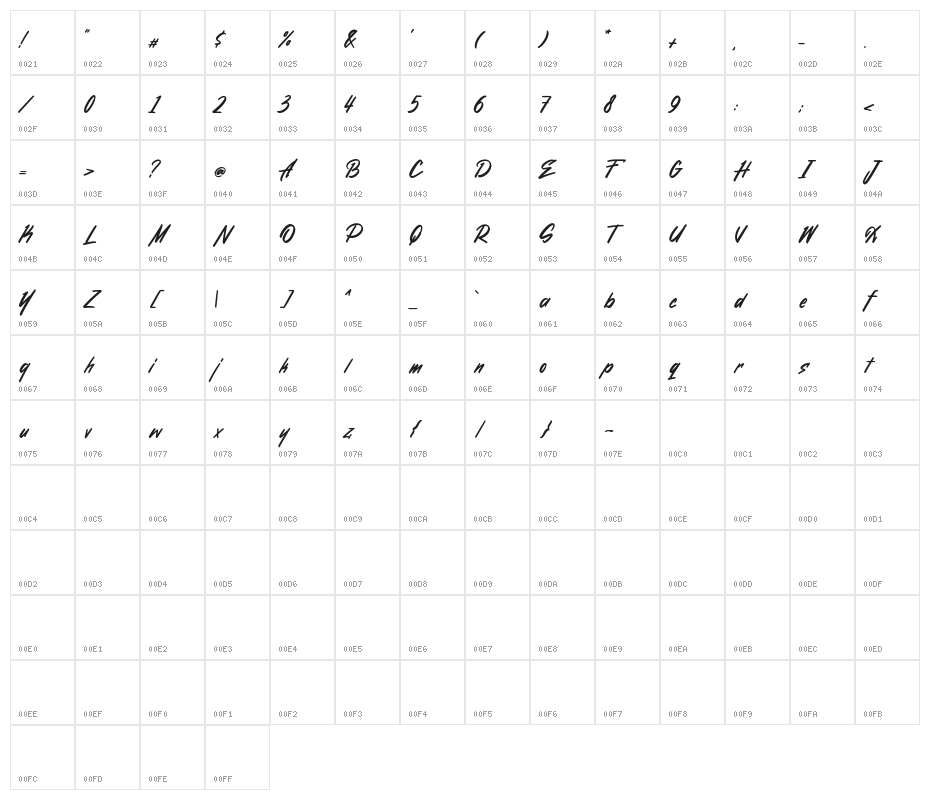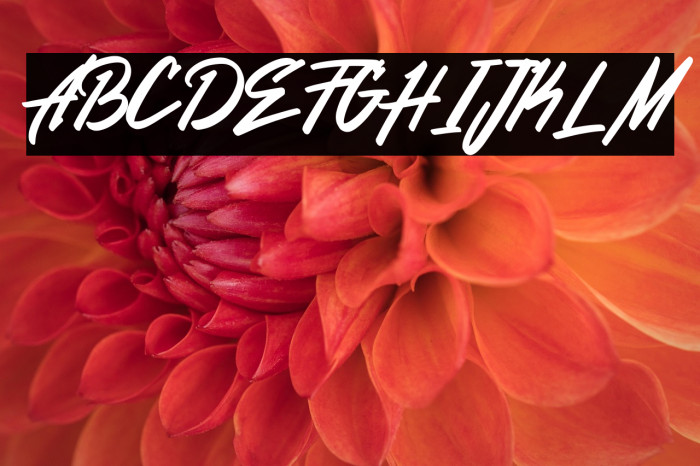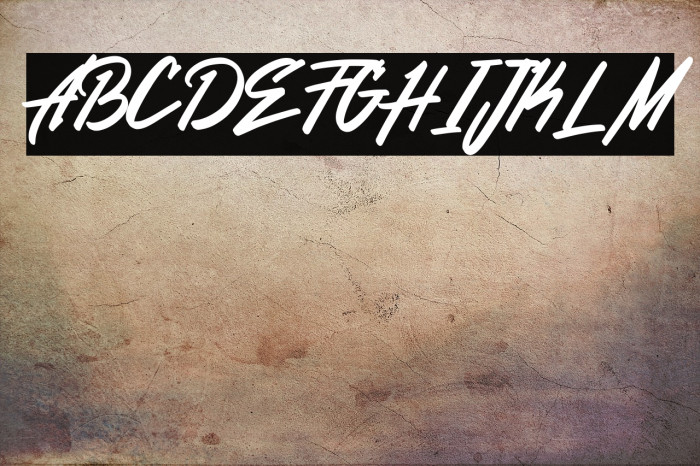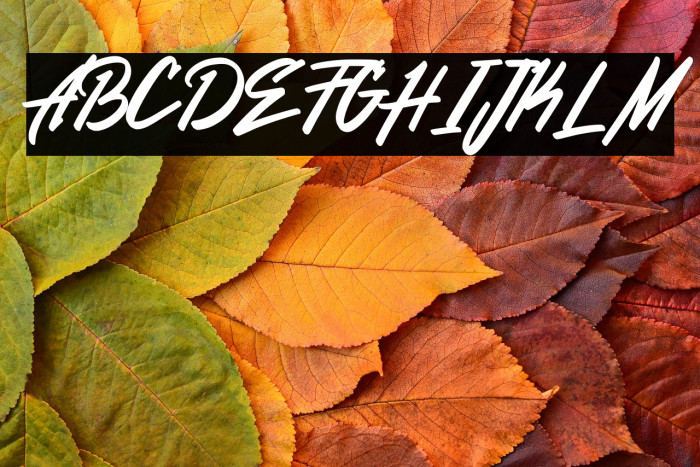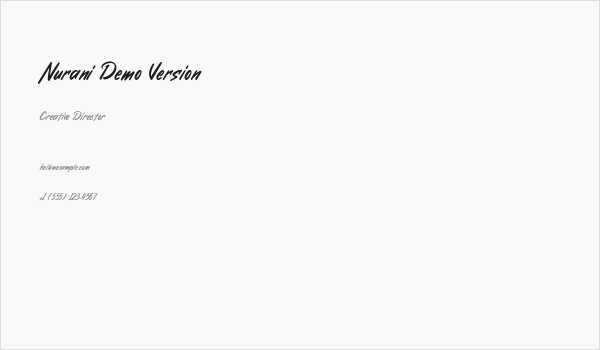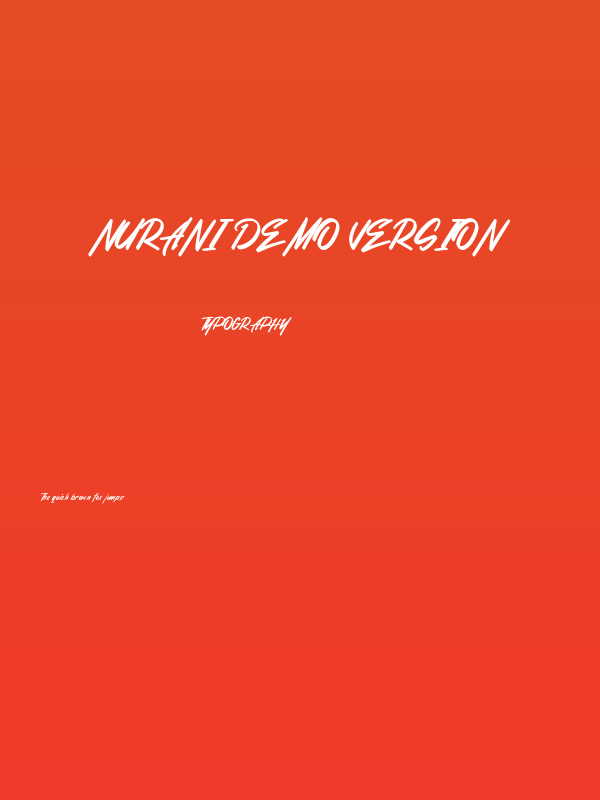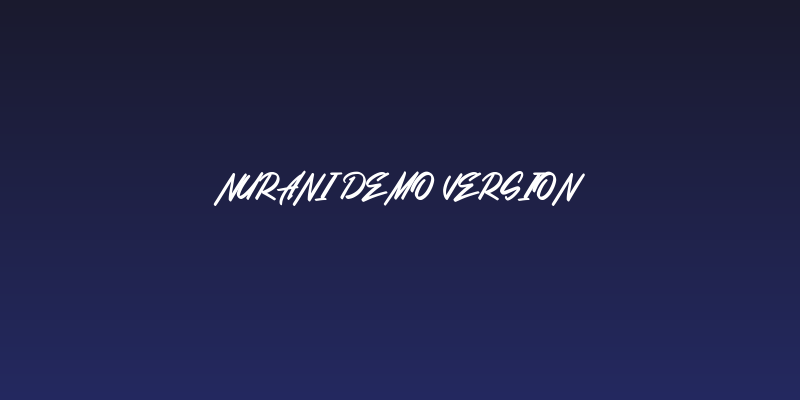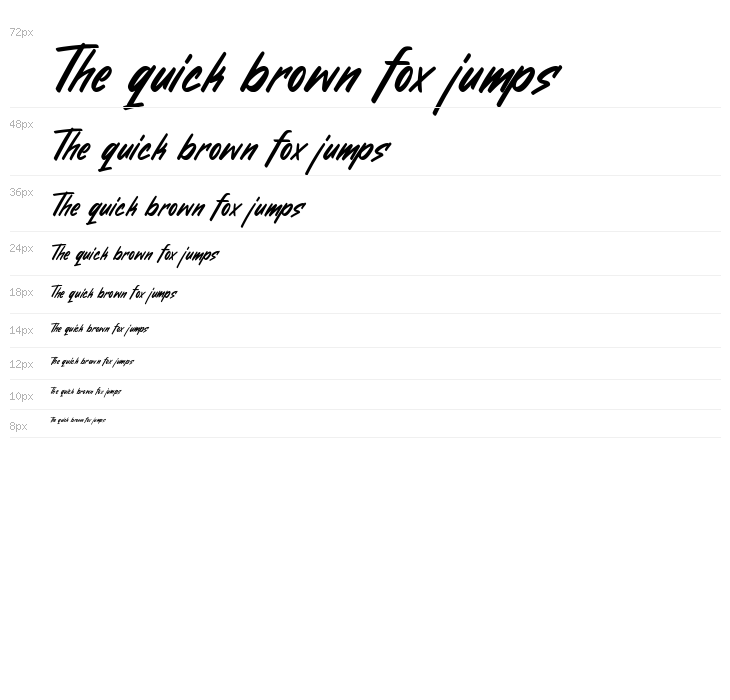
Nurani Demo Version Font
Nurani Demo Version Description
This font exudes a dynamic and energetic style, characterized by its bold, cursive lettering. The strokes are fluid and connected, giving it a handwritten appearance that is both modern and expressive. The uppercase letters are tall and slightly slanted, while the lowercase letters maintain a consistent flow, enhancing readability despite the script style. Numbers and special characters are crafted with the same attention to detail, ensuring uniformity across all elements. The overall design is sleek and stylish, making it suitable for projects that require a personal touch or a sense of movement.
Use CaseLogos, Headlines, Decorative text
Proposed ProjectsIdeal for branding, invitations, greeting cards, and social media graphics.